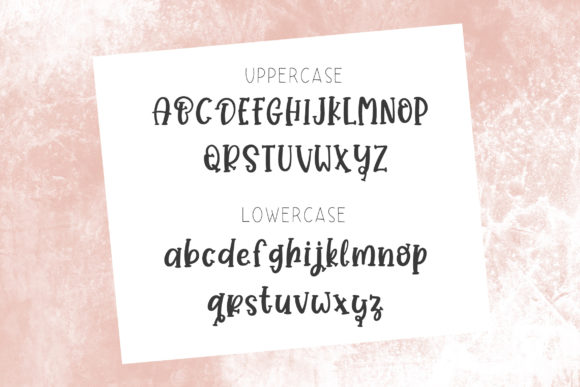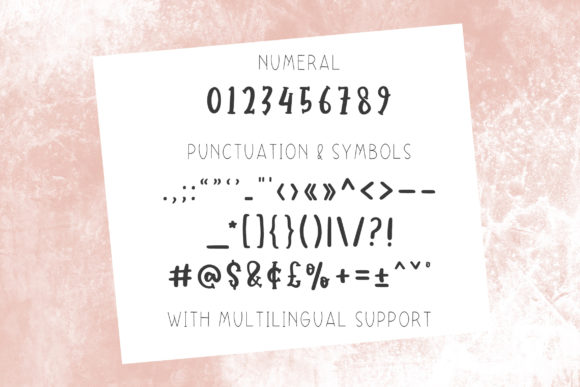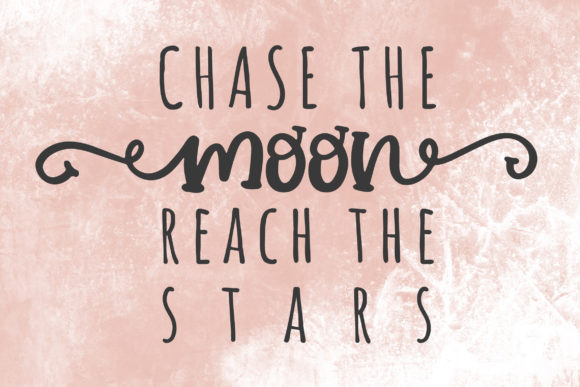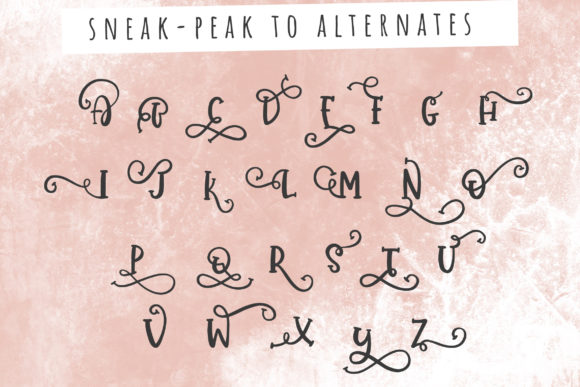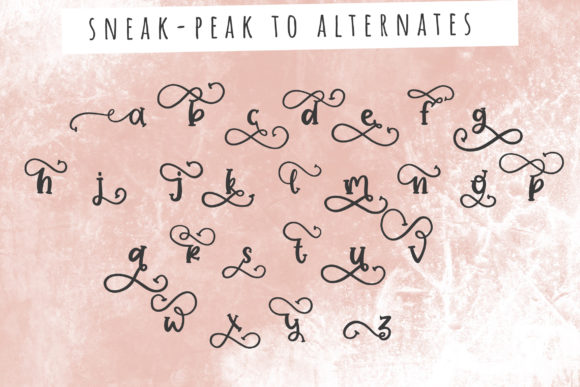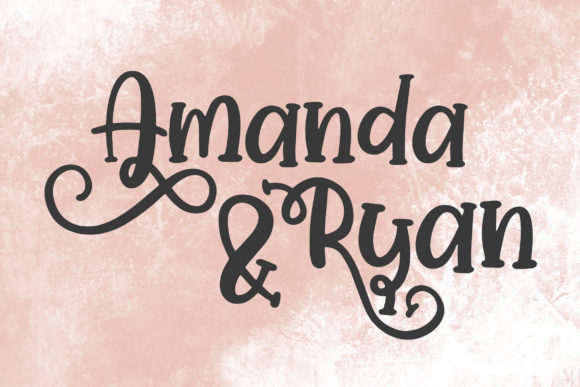
Bumbee Font: Elevate Your Designs with a Chic and Unique Display Font
In the world of typography, a font can make or break a design. For designers and crafters looking to add a distinct touch to their creations, Bumbee Font is an excellent choice. This chic, very detailed, and unique display font is imposing and features uniquely shaped letters that will easily match a wide range of projects.
What is Bumbee Font?
Bumbee Font is a display font that boasts a distinctive and elegant style. Its unique lettering and detailed design make it perfect for headlines, titles, and other display purposes. The font’s imposing presence ensures that it will grab attention and leave a lasting impression on viewers.
Key Features of Bumbee Font
- Unique and Detailed Design: Bumbee Font features intricately designed letters that set it apart from other fonts.
- Chic and Elegant Style: The font’s sleek and sophisticated design makes it perfect for high-end projects.
- Imposing Presence: Bumbee Font demands attention and is sure to make a statement in any design.
- Versatile: The font’s unique style allows it to be paired with a wide range of designs, from modern and minimalist to vintage and ornate.
Who Can Benefit from Bumbee Font?
Bumbee Font is an excellent choice for a variety of designers and crafters, including:
- Graphic Designers: Those looking to add a touch of elegance and sophistication to their designs.
- Logotype Designers: Bumbee Font’s unique design makes it perfect for creating custom logos and brand identities.
- Crafters: Those creating handmade products, such as cards, invitations, and other paper crafts.
- Web Designers: Bumbee Font can be used to create stunning website headers, titles, and other display elements.
Tips for Using Bumbee Font
To get the most out of Bumbee Font, follow these tips:
- Use it as a Display Font: Bumbee Font is designed for display purposes, so use it to create eye-catching headlines and titles.
- Pair it with a Simple Font: Balance out the intricacy of Bumbee Font by pairing it with a simple, clean font for body text.
- Experiment with Colors and Textures: Bumbee Font looks stunning with a variety of colors and textures, so don’t be afraid to get creative.
Bumbee Font is a chic, unique, and detailed display font that is sure to elevate your designs. Its imposing presence and elegant style make it perfect for a wide range of projects, from graphic design and logotype design to crafting and web design. With its versatility and creative possibilities, Bumbee Font is an excellent addition to any designer’s or crafter’s toolkit.